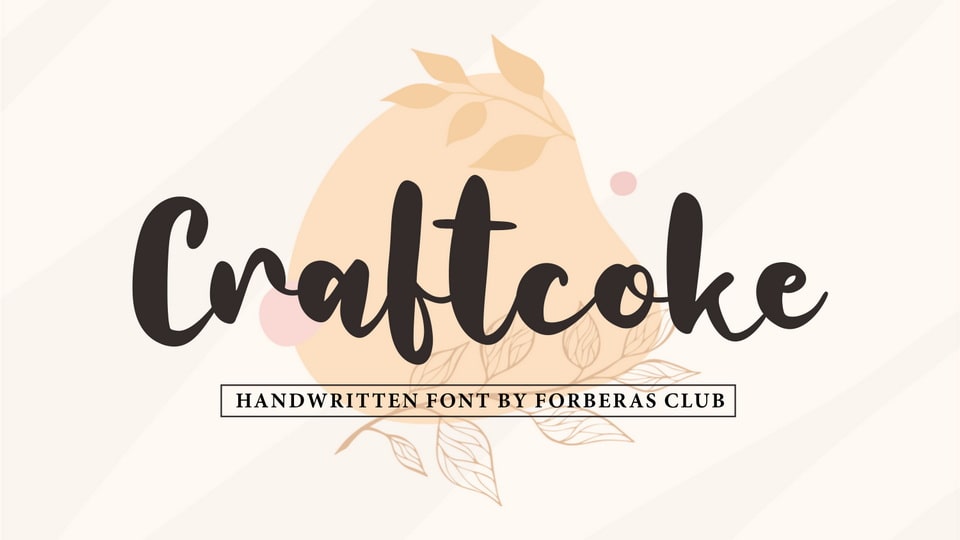
Download Craftcoke font, a script typeface inspired by modern and casual handwriting. Craftcoke font is especially designed for crafts, organic, personal projects.